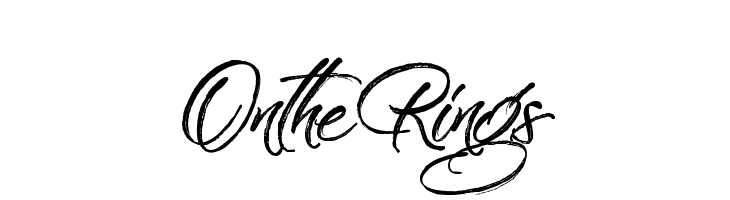
( Måns Grebäck - www.mansgreback.com )
An elegant, flowing script font with intricate loops and swirls.
( Paragraph - Jan Schmoeger - www.paragraph.com.au )
A refined serif font with thin strokes and a modern, elegant style.
( TSV Creative - creativemarket.com/TSVcreative )
A bold, distressed font with a grunge, hand-drawn appearance.
( Typhoon Type - Suthi Srisopha - www.typhoontype.net )
A dynamic and expressive script font with fluid, elegant strokes.
( Vladimir Nikolic - www.coroflot.com/vladimirnikolic )
A bold, distressed font with a grunge effect and stencil-like appearance.
( Woodcutter - woodcutter Manero - www.woodcutter.es )
A bold, jagged font with an aggressive, dynamic style.
( deFharo - Fernando Haro - defharo.com )
A bold, pixelated font with a geometric, digital aesthetic.
( deFharo - Fernando Haro - defharo.com )
A bold, italic, and geometric font with a dynamic and modern style.
( Character )
A modern, geometric sans-serif font with clean lines and balanced spacing.
( Font Nook - www.geocities.com/weakestlink11/ )
A festive, decorative font featuring Santa Claus and holiday elements.